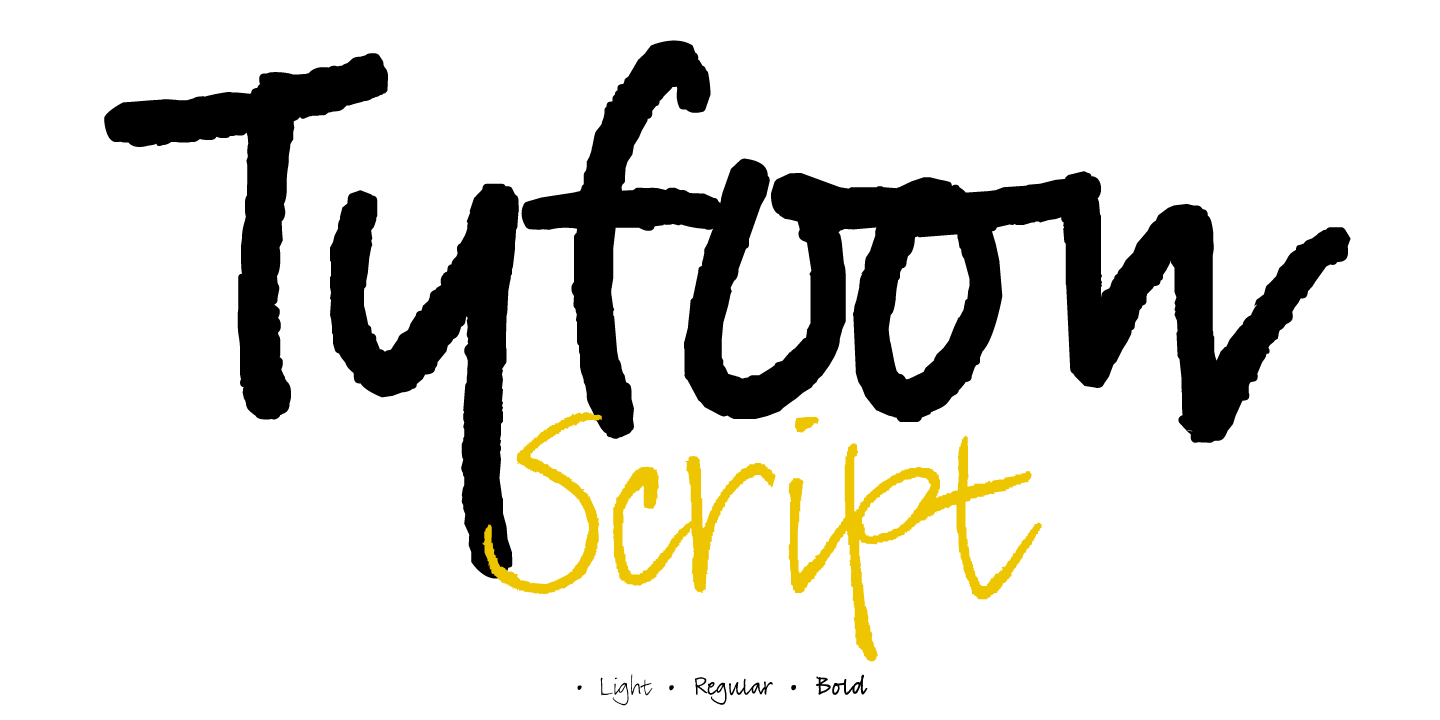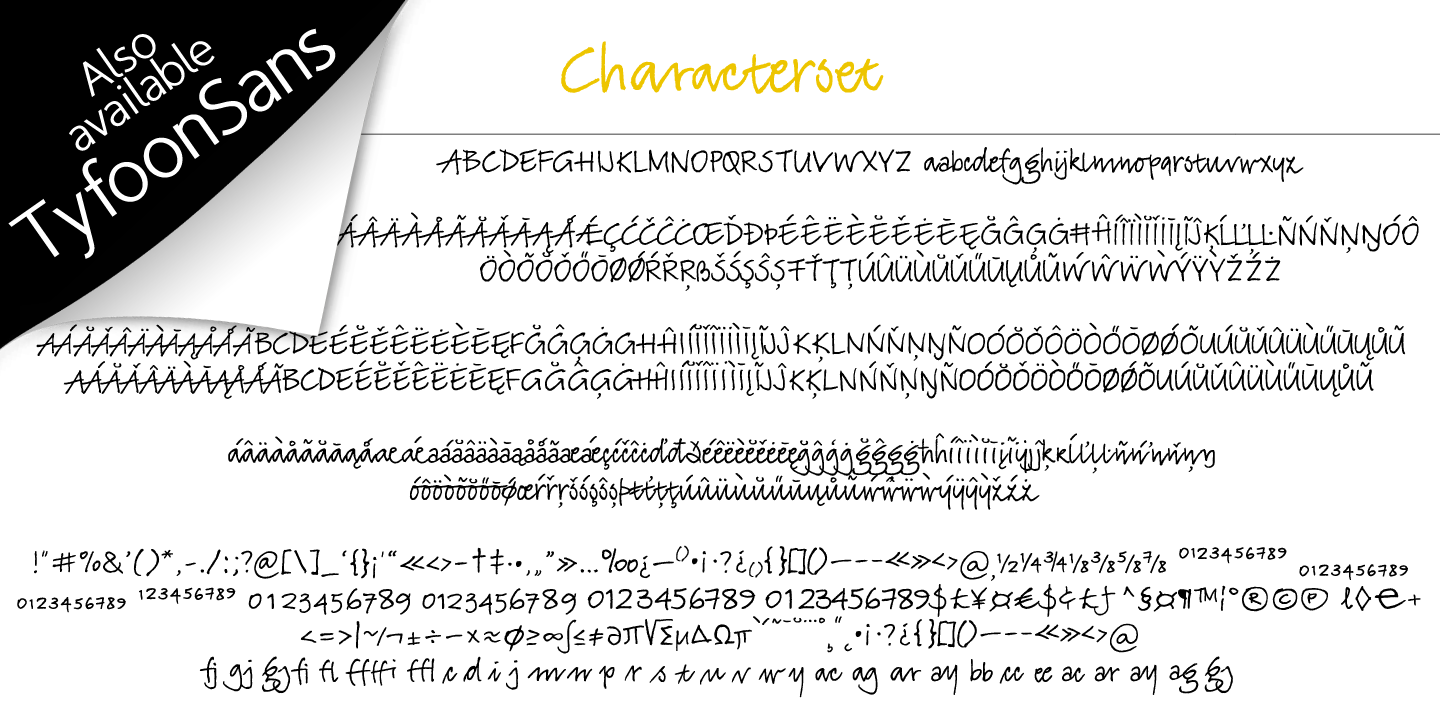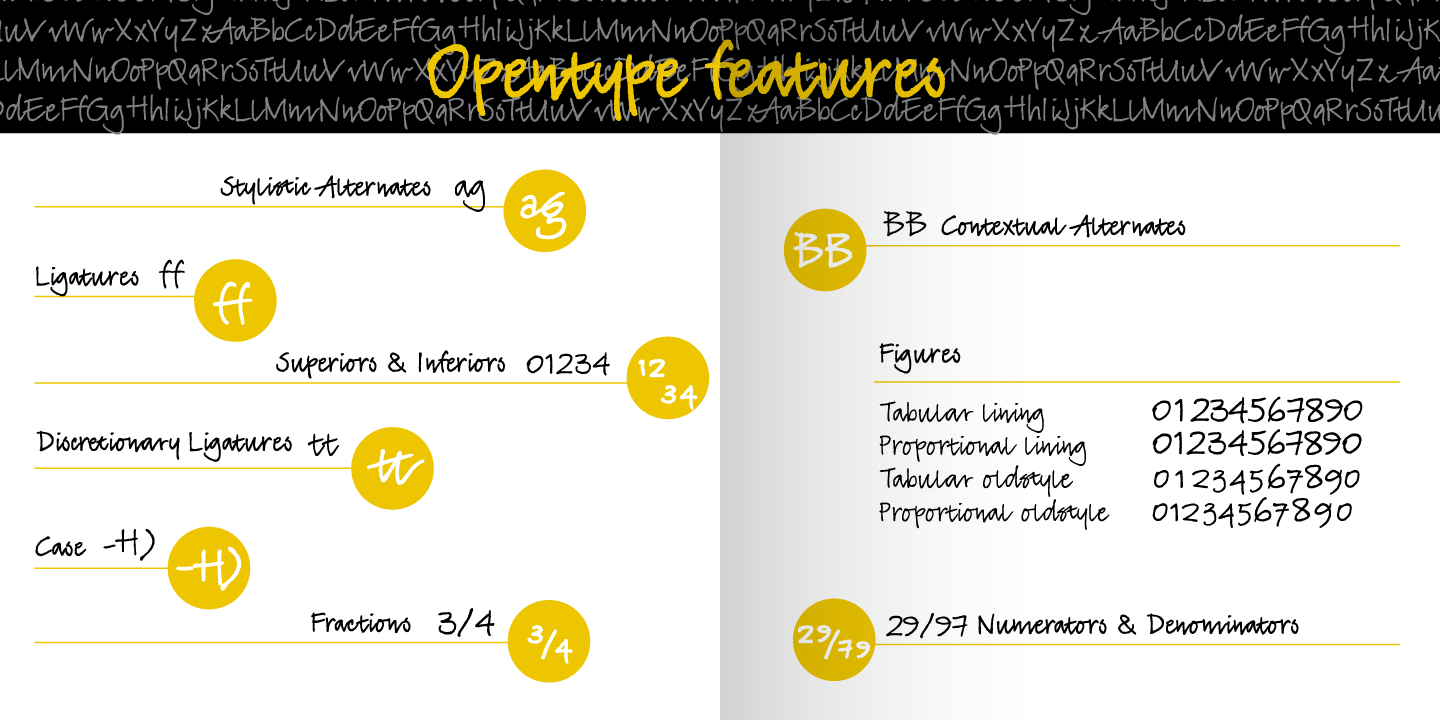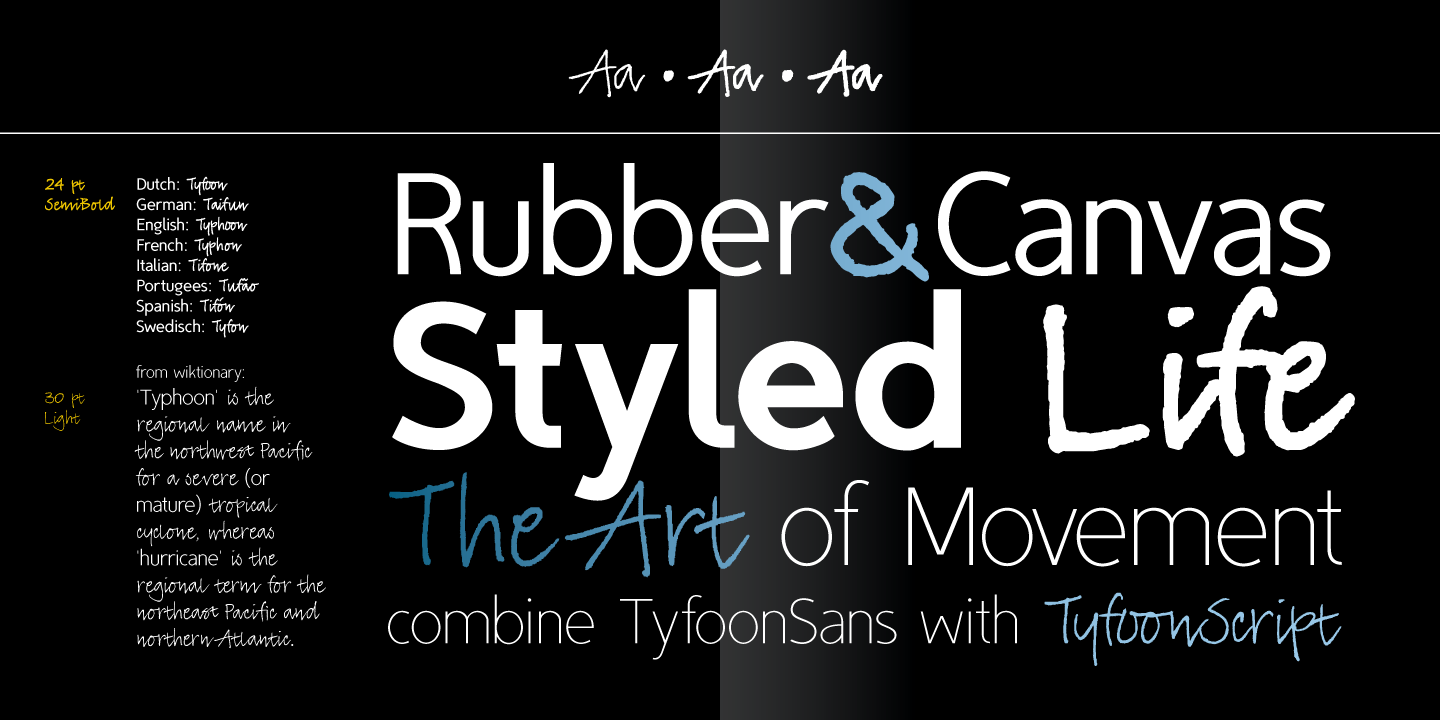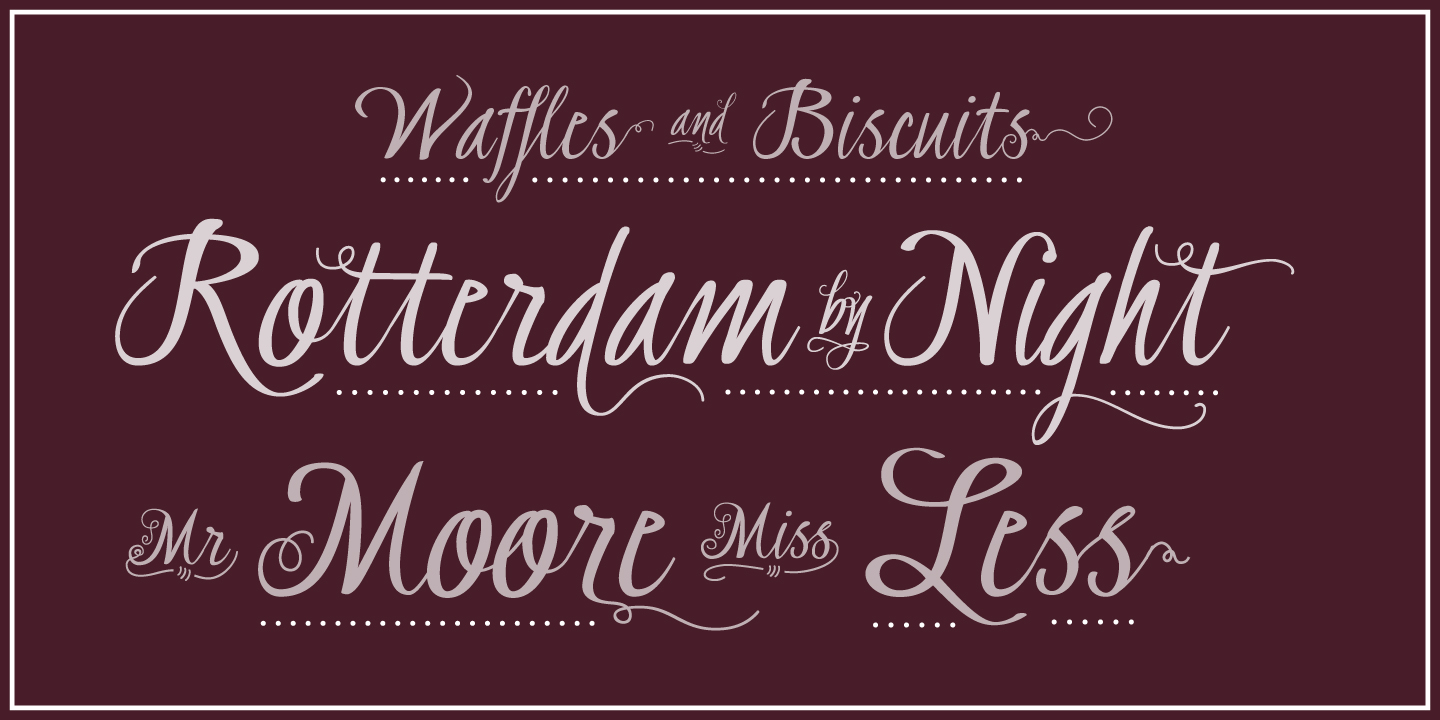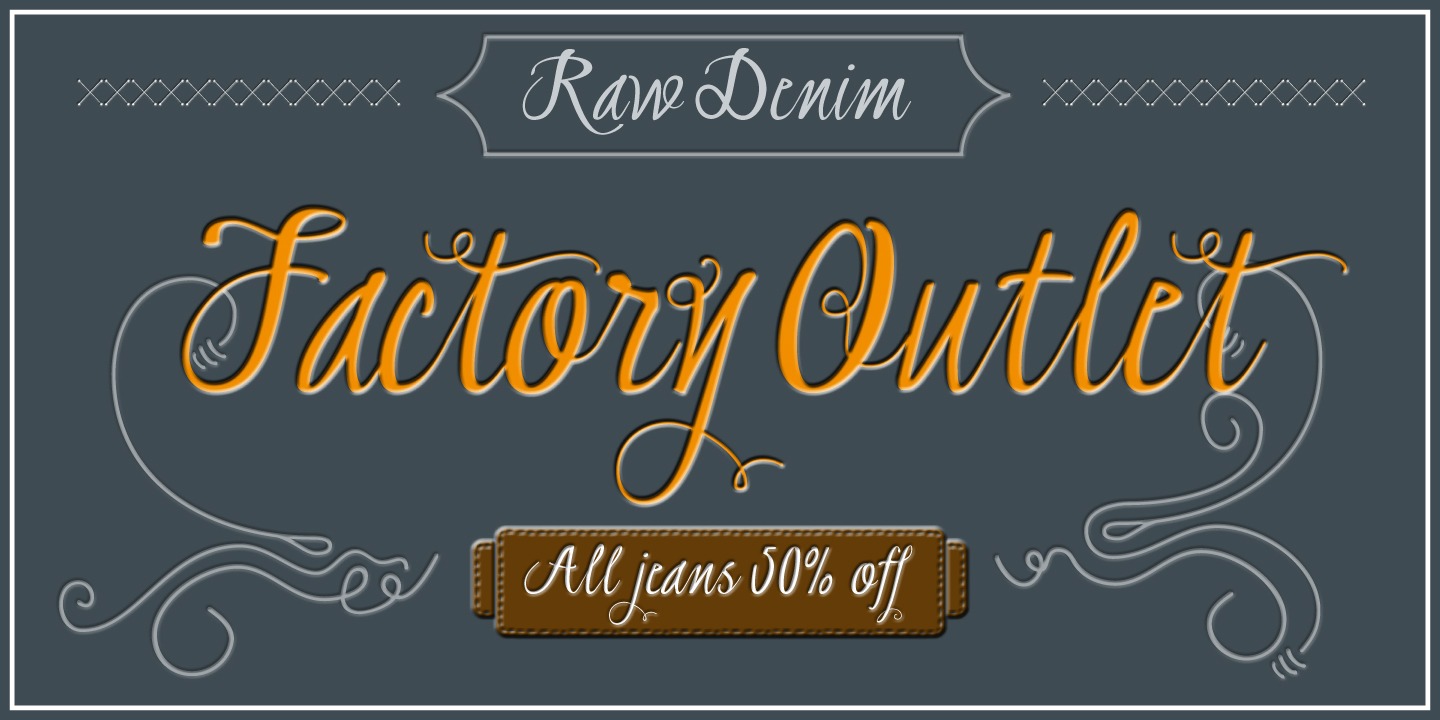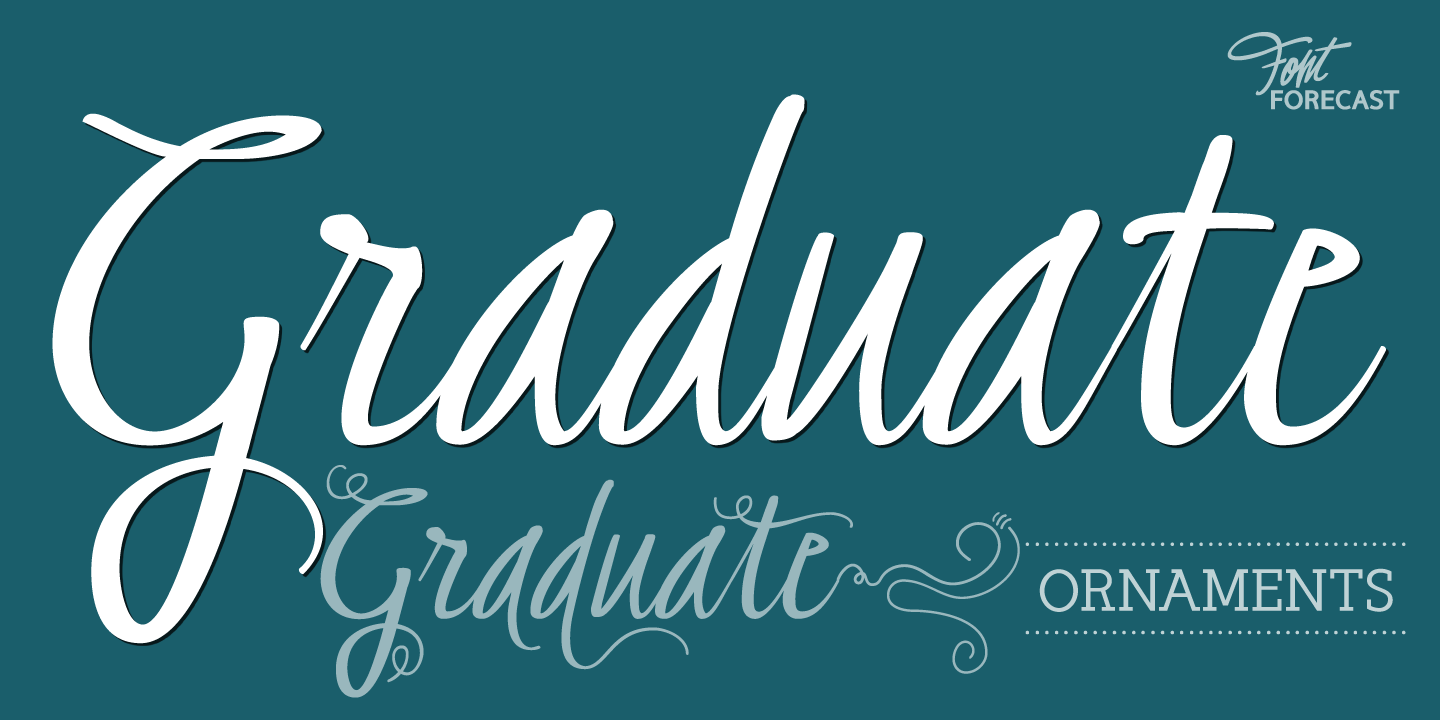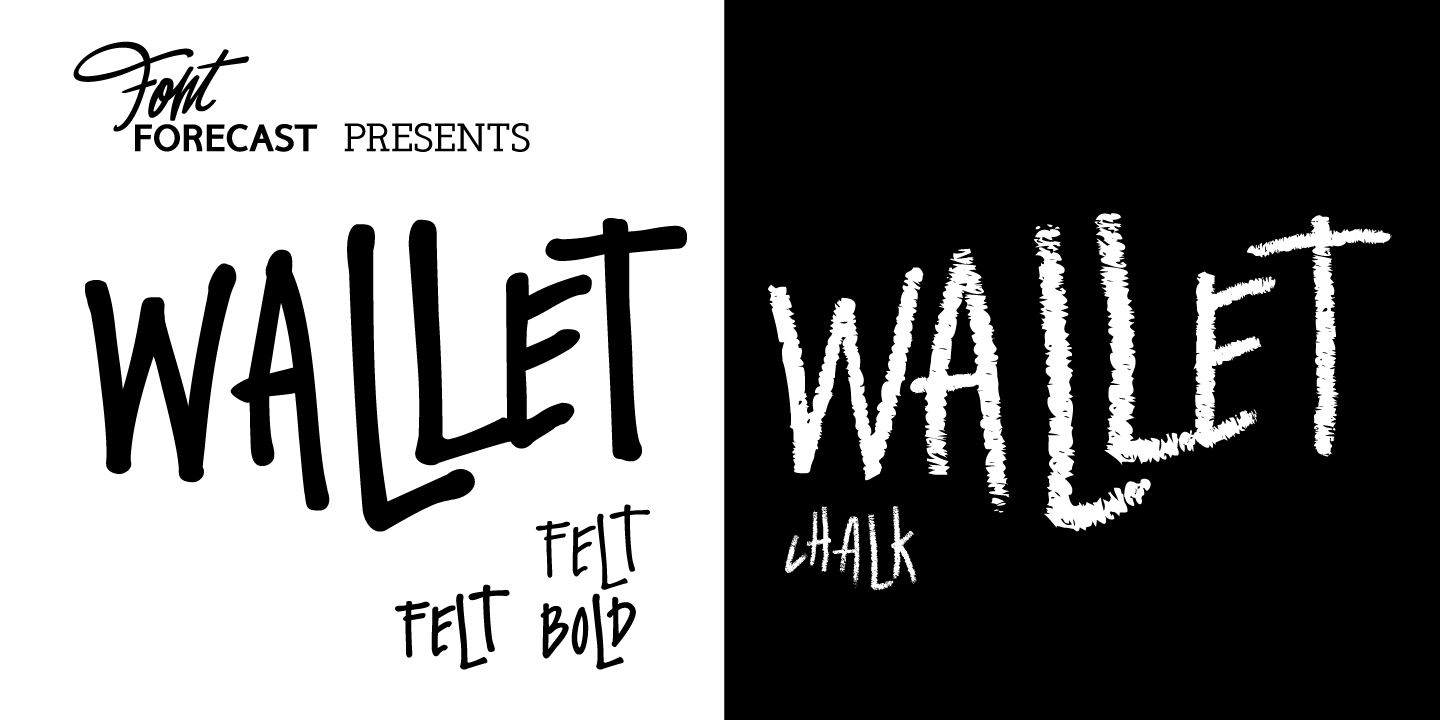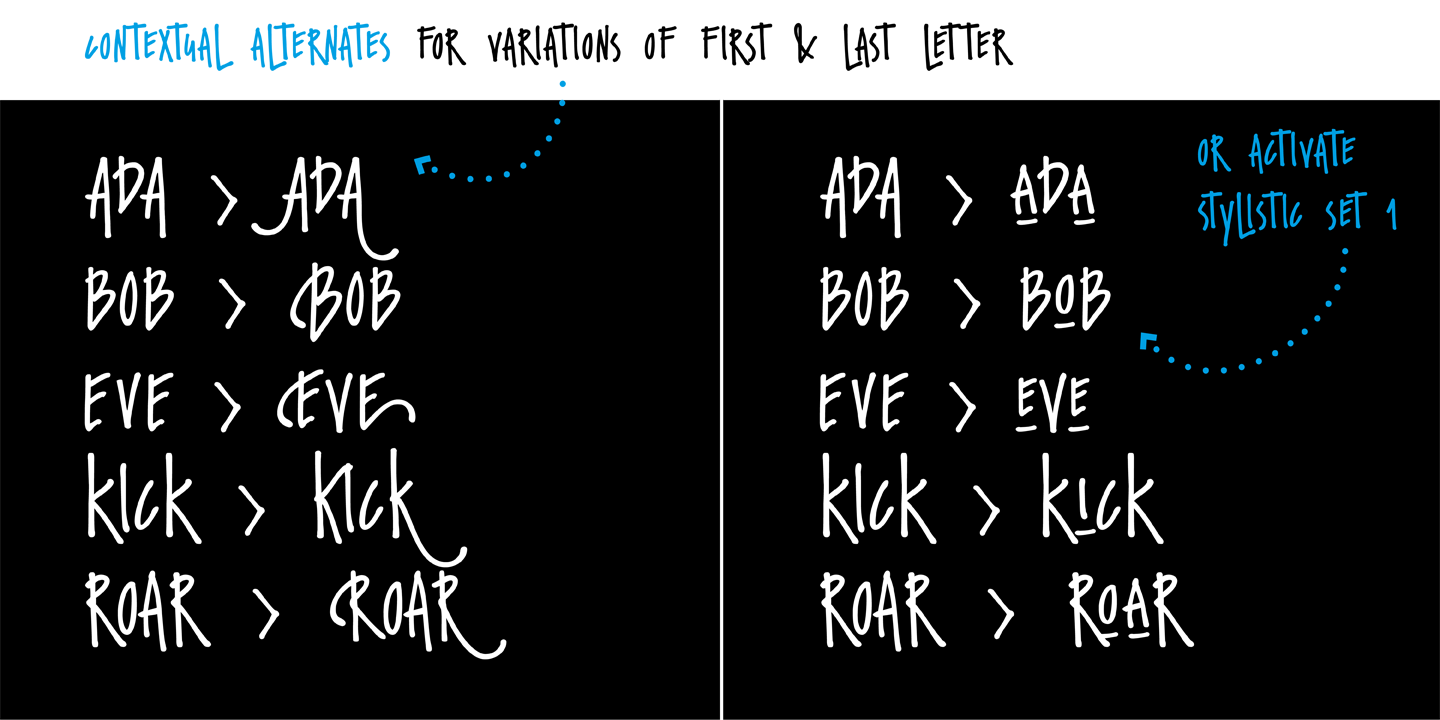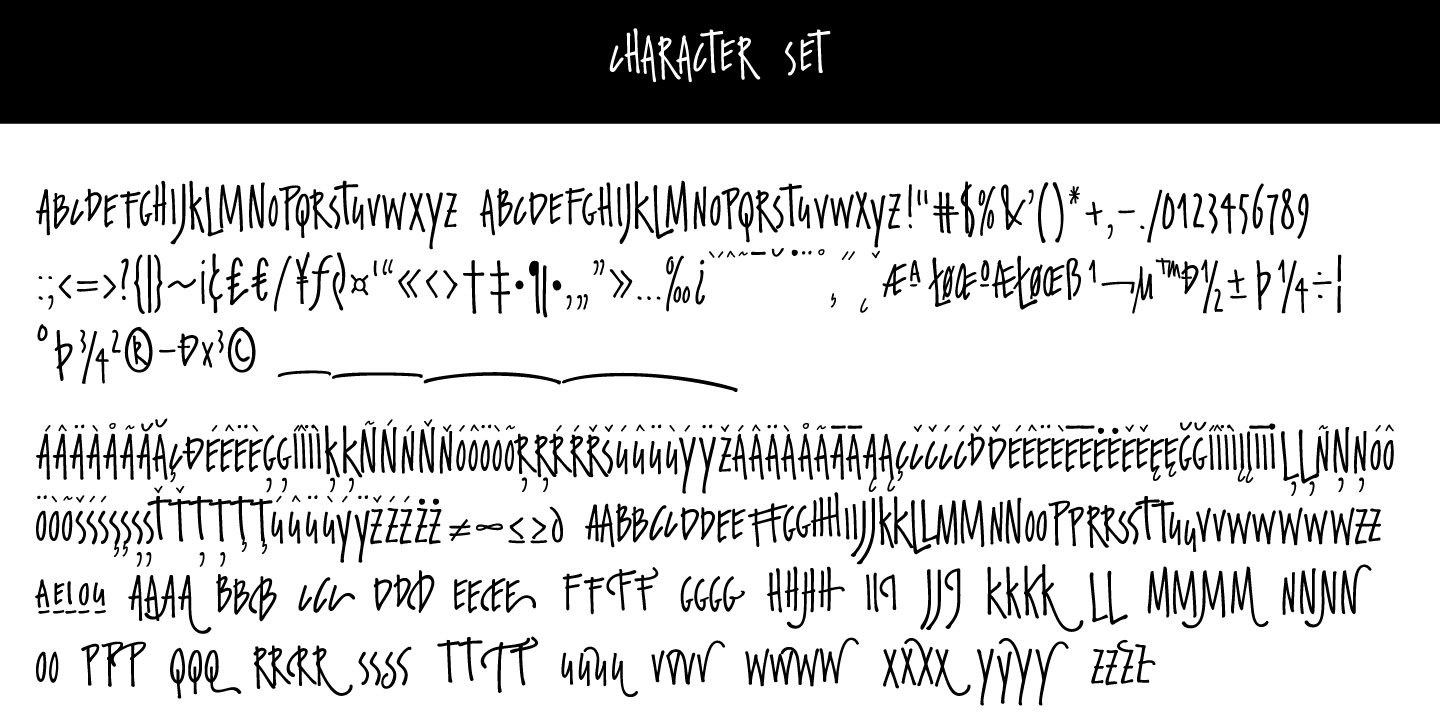
Hanneke Classen started Fontforecast in 2013 as a label of Storm Creative Consultancy, an advertising agency where she works to this day as a graphic and type designer. “Working with fonts as a designer day in, day out made me curious about the process of designing fonts,” she says. “As soon as I dived into the ins and outs of font design, I was hooked.” It was in that same year that she finished work on her first two font families: Tyfoon Sans and Tyfoon Script. “The concept was to combine two very different designs in such a way that they work together well. By using the same measurements as a skeleton for both font families they became interchangeable, even in the same sentence, without causing leading problems.”
“The concept of making font families consisting of different designs especially made to complement and support each other was relatively new at the time Fontforecast started,” Hanneke says. “My aim is to give all of my font families a certain something extra.” This drive to push the envelope gave way to bestselling typefaces Chameleon, a design kit of 16 fonts intended to bring a personalized touch to any project, and Salt & Spices Pro, a modern collection of 9 calligraphy fonts that brings to life an authentic feel of vintage dip pen calligraphy.
There is much to look forward to in the future from the Netherland-based foundry. Marloes Versluys, an Amsterdam-based art director, graphic designer and type designer, is joining the foundry and working with Hanneke to continue making a wide variety of typefaces perfect for any, and all projects.